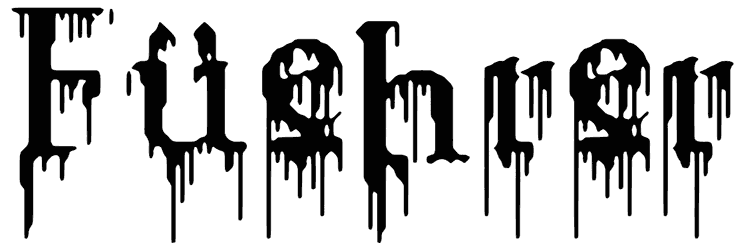
Fuehrer Font
Designed byCharlie Shogoe
Would you like to deliver your dread design with a blood-melting face? Fuehrer as a horror font is over here to do this for you. This dripping font with its spray-painted and urban design can lend your words an eerie vibe.
A scary-version of the Google font “Catull”